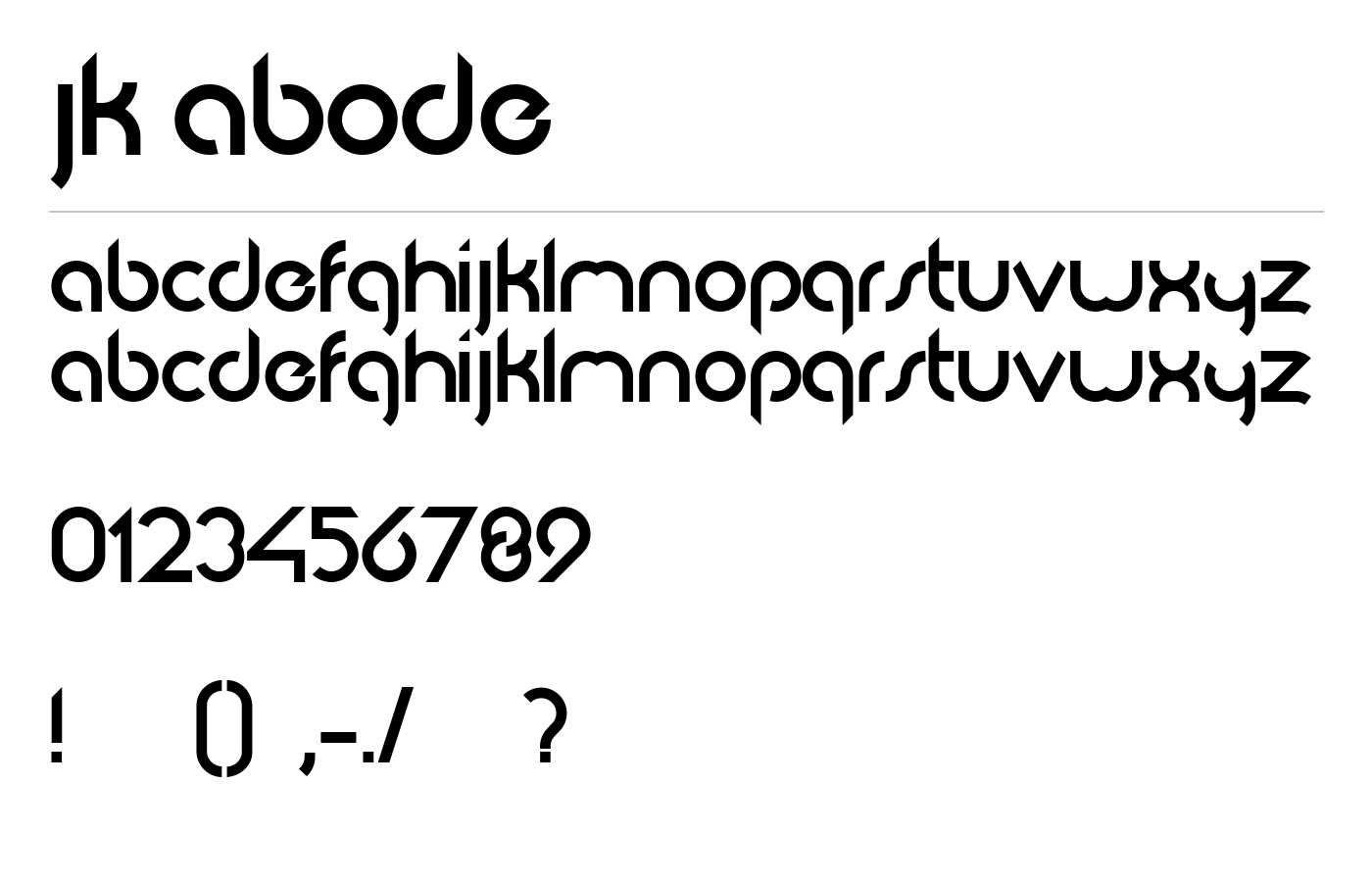
JK Abode is a modern sans serif font characterized by its bold weight and striking geometric shapes combined with sharp, angular terminals, creating a futuristic and edgy aesthetic. Its consistent stroke width, single-story letterforms, and unique stylized details make it an excellent choice for attention-grabbing headlines, logos, and branding projects seeking a contemporary and distinct look. This font works especially well in creative and tech-oriented contexts where a strong, modern personality is desired.
JK Abode Font
About JK Abode Font